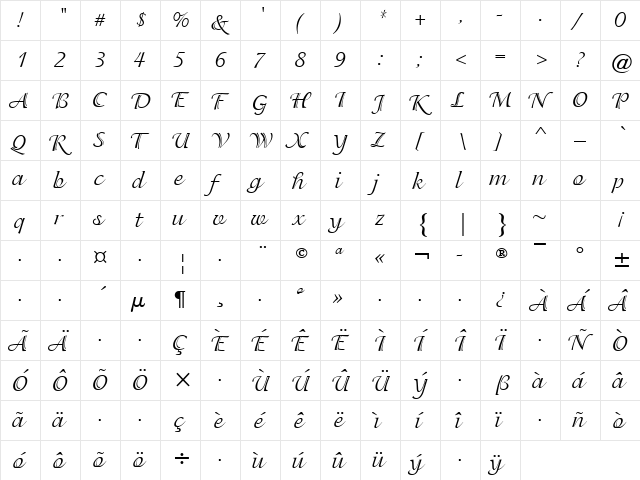
Adorable Regular Font Preview
Adorable Regular
Design Context for Adorable Typeface
Adorable takes a measured approach to typography — its balanced proportions and neutral character make it a reliable workhorse for both digital and print work.
Pro Tip: Use Adorable in both headline and body roles to test its range before committing to a single application.